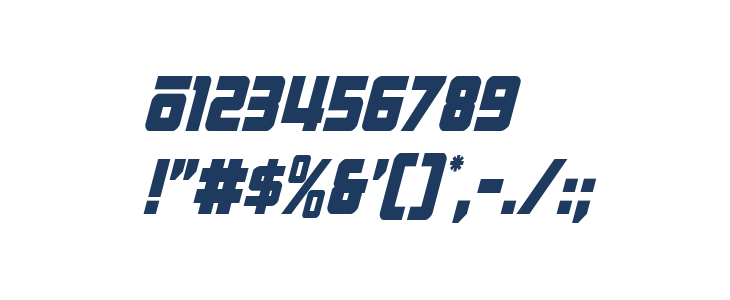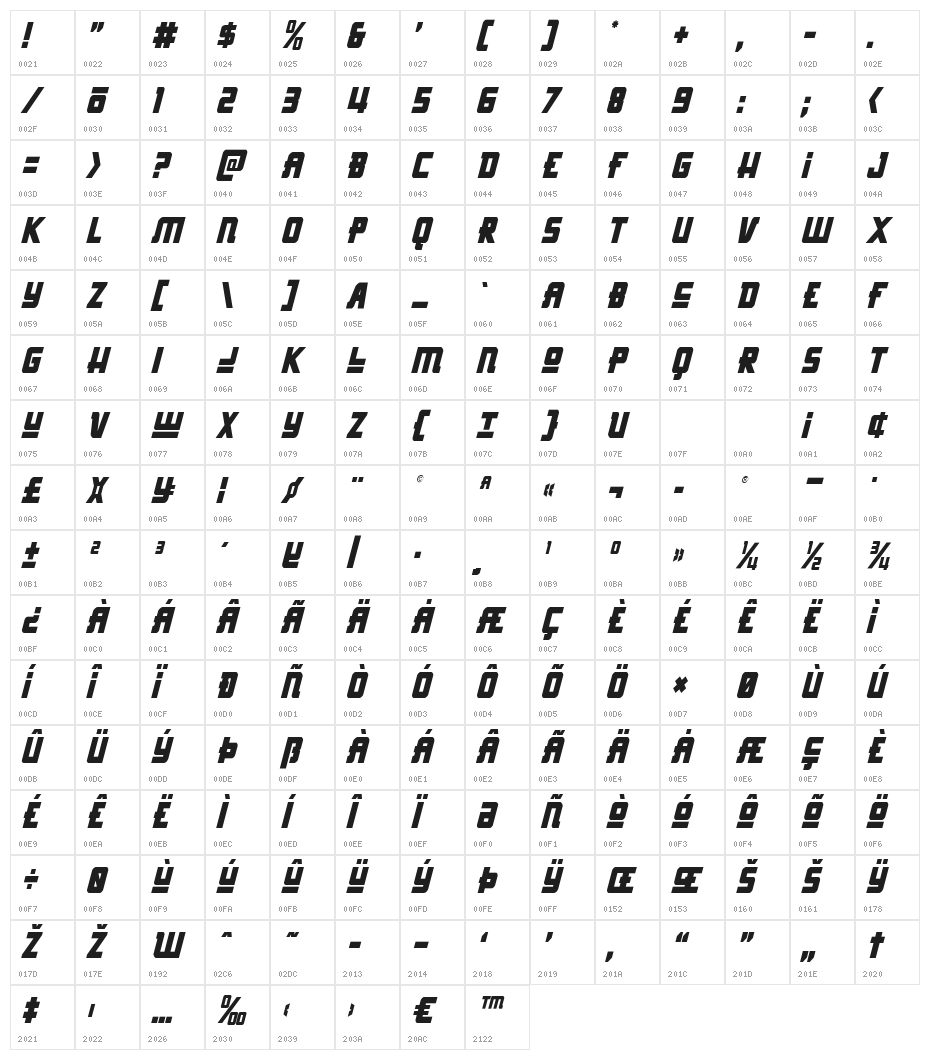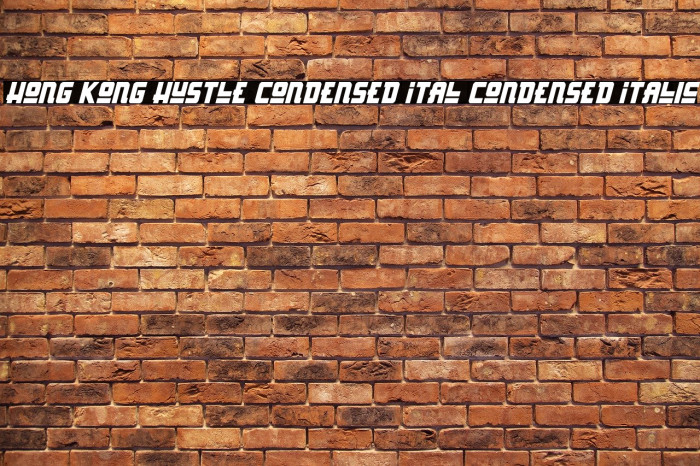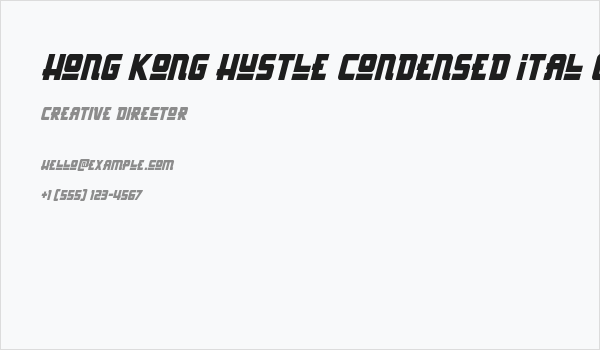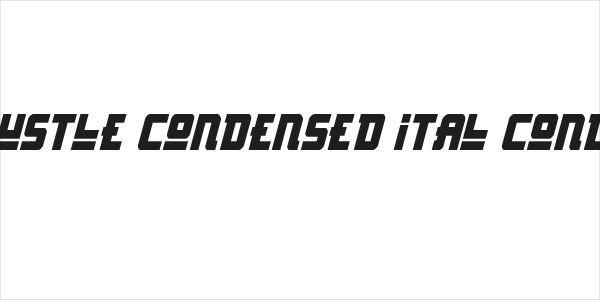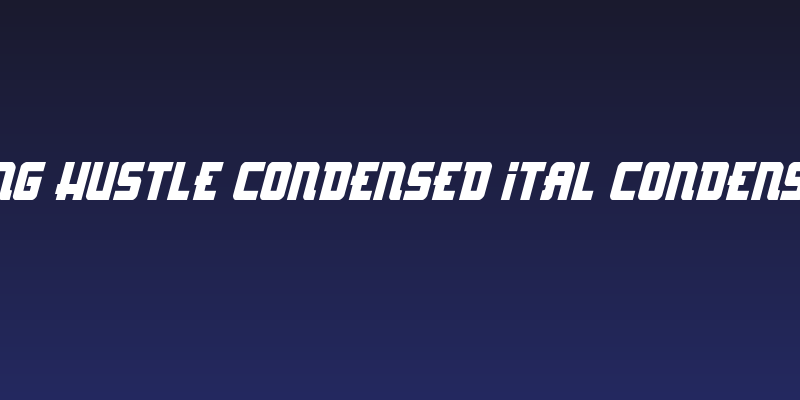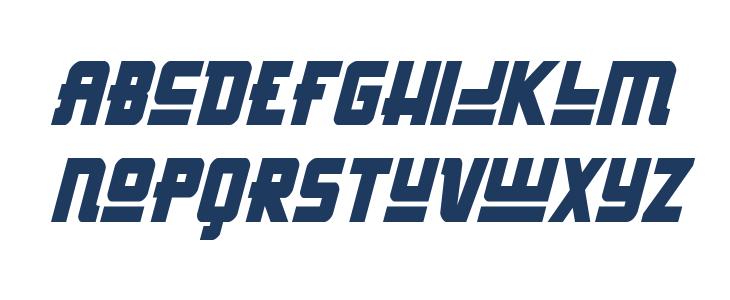
Hong Kong Hustle Condensed Ital Condensed Italic Font
Hong Kong Hustle Condensed Ital Condensed Italic Description
This font features a bold, condensed style with a distinct italic slant, giving it a dynamic and energetic appearance. The characters are tightly spaced, enhancing the compact feel. The design incorporates sharp angles and clean lines, contributing to a modern and edgy look. The uppercase and lowercase letters maintain a consistent style, with the lowercase mirroring the uppercase in form. Numbers and special characters are designed to match the bold, angular aesthetic, ensuring uniformity across all glyphs. The overall style is suitable for projects that require a strong, impactful visual presence.